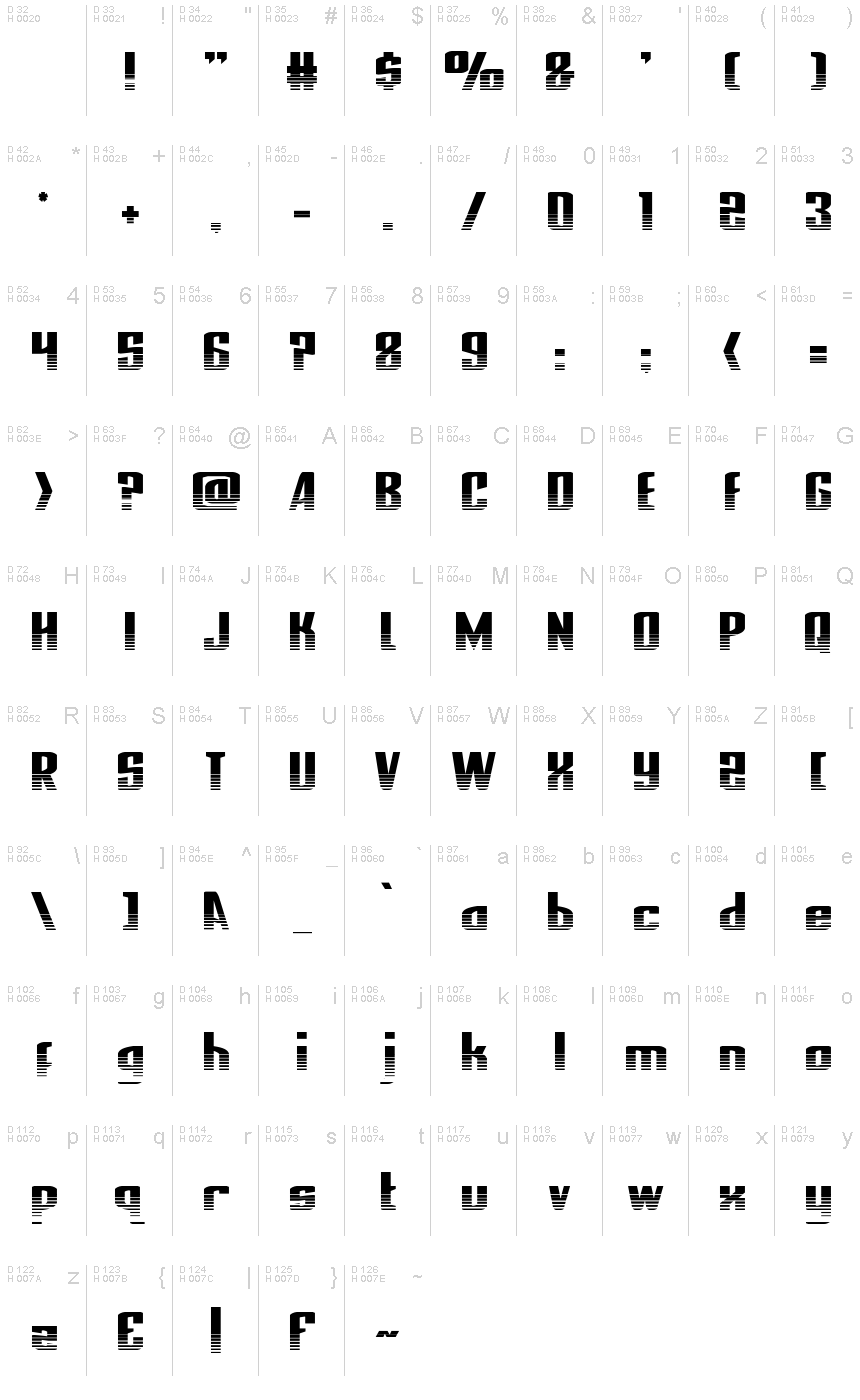
National Express Halftone
National Express Halftone is a captivating display font that exudes a sleek, technological aesthetic. Designed by Daniel Zadorozny, this font commands attention with its striking halftone pattern, which lends a dynamic, pixelated appearance to the letterforms. The bold, angular shapes and clean lines convey a sense of modernity and precision, making it an ideal choice for a wide range of design applications, from digital interfaces and branding to editorial layouts and packaging.
National Express Halftone's versatility and visual impact make it a standout choice for designers seeking to elevate their projects with a touch of contemporary flair.